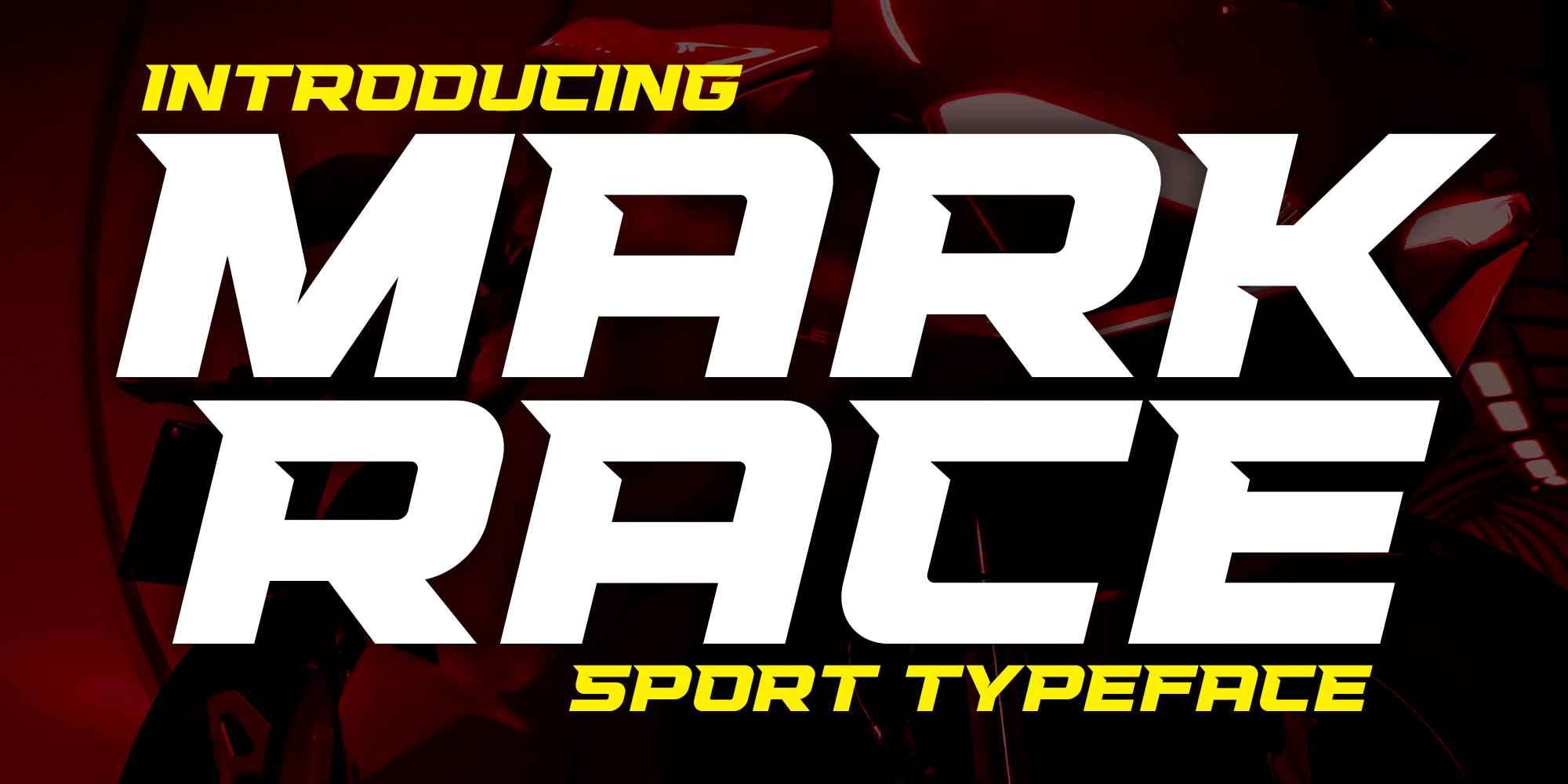
Racing Mark Race Font is perfect for motorsport team branding, speedway racing posters, automotive championship graphics, high-performance vehicle logos, racing event promotions, pit crew materials, adrenaline-fueled competitions, and velocity-driven marketing campaigns. Its high-speed character makes it ideal for projects celebrating racing excellence and automotive performance.
What makes Racing Mark Race Font exciting is its electrifying ability to capture the intense speed and competitive spirit of professional racing through dynamically crafted letterforms that blur with velocity and pulse with adrenaline. The aerodynamic construction features sleek elements with racing precision that embodies the essence of championship performance and competitive excellence. This typeface embodies racing supremacy and speed mastery, making every design feel turbocharged and competitively dominant.
Racing Mark Race Font family includes Regular, Bold, Light, Italic, Velocity, and Championship variations, providing designers with comprehensive tools for creating high-octane racing-inspired typographic compositions that celebrate automotive excellence and competitive spirit.
Accelerate your creative vision with the championship speed of Racing Mark Race Font Free Download. This high-performance typeface brings racing supremacy to any design project, whether you're developing brand identities for motorsport organizations, crafting promotional materials for racing events, or designing graphics for automotive companies. The font's velocity-driven architecture and competitive presence make it essential for projects requiring speed appeal. Racing Mark Race Font perfectly captures the essence of racing excellence while ensuring maximum visual impact across all motorsport applications. Its aerodynamic character forms and championship-inspired design language make it ideal for brands seeking to communicate speed mastery and competitive dominance, delivering memorable results that resonate with audiences who appreciate racing passion, automotive performance, and the exhilarating rush of championship competition that pushes limits and defines victory.